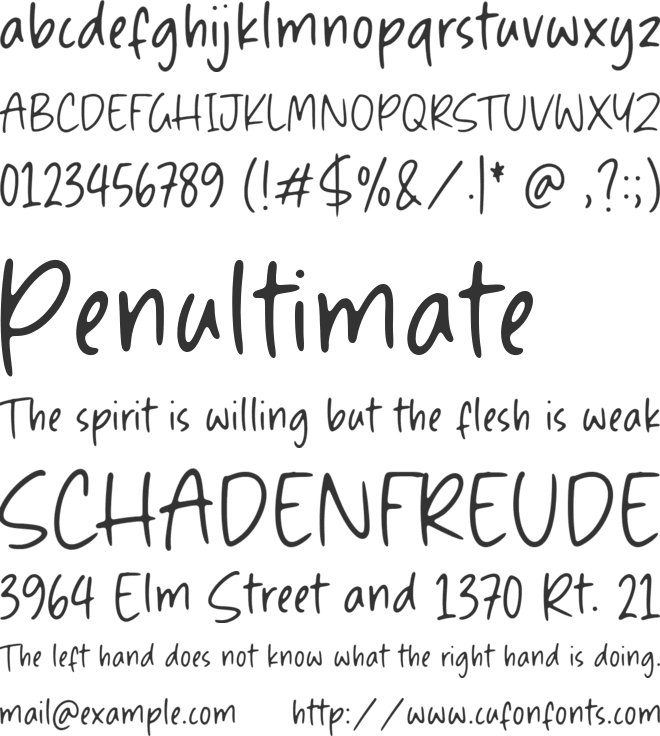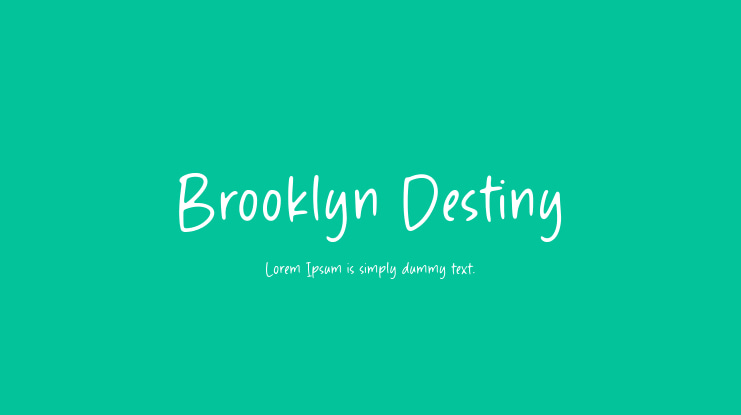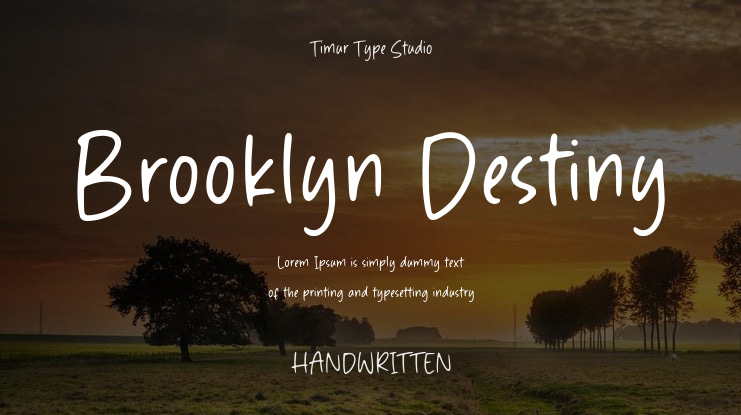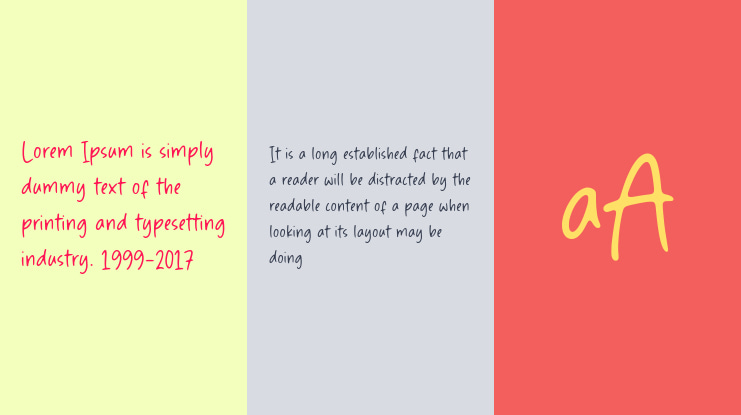
Brooklyn Destiny Font
Introducing Brooklyn Destiny by Timurtype Studio!
Brooklyn Destiny is a quotable handwritten font that radiates warmth and charm. Its smooth curves and flowing lines capture the essence of touch and creativity, making it ideal for quotes, invitations, and branding. This font strikes a perfect balance between elegance and a casual vibe, which makes it ideal for projects seeking to convey authenticity and a sense of connection. Its versatile design ensures it stands out while remaining approachable, adding a unique flair to any creation.
Brooklyn Destiny supports multiple languages and features:
– A full set of standard alphabets and punctuation